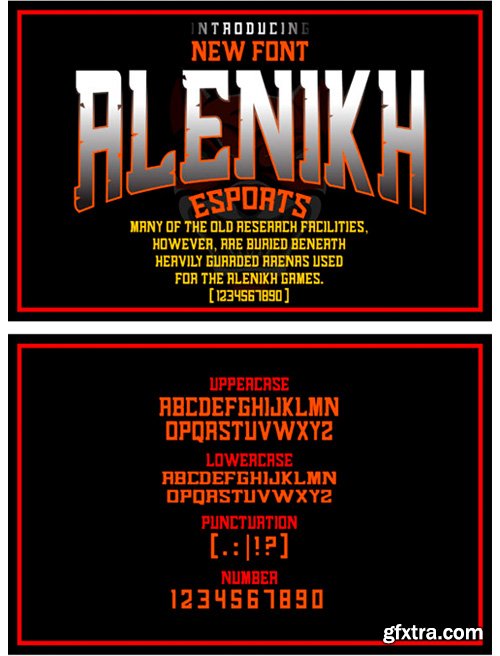
Alenikh Sports Font
Alenikh Sports is a strong, powerful and dynamic blackletter font, that works perfect for gaming or sports-themed designs. It will convey any message with confidence and style.